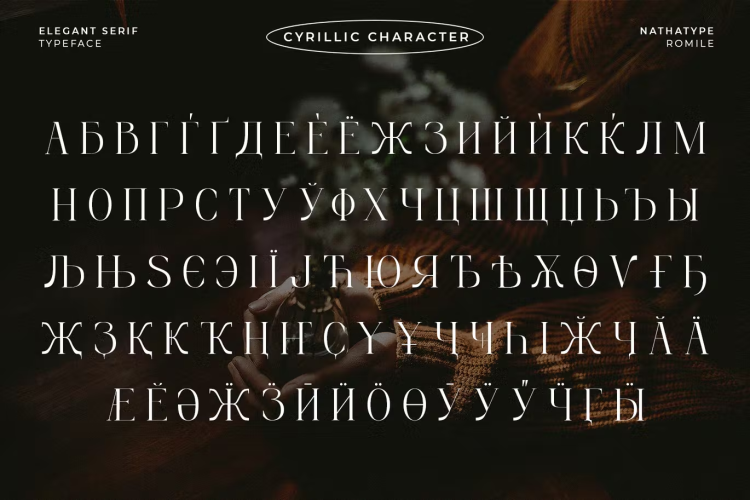
Romile Font
Looking for an elegant font? Romile is a elegant and bold serif font. It comes to be a single font all in uppercases. Thanks to the cursive and unique swirls at the end…
Looking for an elegant font?
Romile is a elegant and bold serif font. It comes to be a single font all in uppercases. Thanks to the cursive and unique swirls at the end of some characters carries a sense of elegant looks. On the other hand, the weight of the font brings strength to any title or header you apply it to.
It can be used for many design projects, such as poster, logo, book cover, branding, heading, printed product, merchandise, quotes, social media campaign, etc. Get more inspiration about how to use it by seeing the font preview.
Where Romile Font works best
Reports, white papers and book interiors hold the eye longer when the text face has real serifs; Romile Font keeps that rhythm without looking old-fashioned.
Food, spirits and cosmetics brands lean on serif wordmarks to suggest age and care. Romile Font gives that signal at wordmark size.
Set Romile Font for the body of an award or a diploma and keep the recipient name in a script; the pairing is what makes a document feel official.